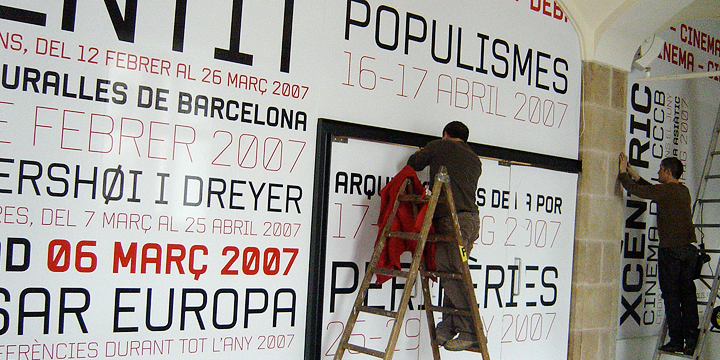
Mecano
Mecano™
by Typerepublic
Mecano Font Family was designed by Andreu Balius and published by Typerepublic. Mecano contains 4 styles and family package options.
About Mecano Font Family
Mecano is a typeface based on geometric structures. Their shapes, wide open and simple, reflects the spirit of mechanical technology. Available on 4 different styles: UltraLight, Light, Regular and Black.
Designers: Andreu Balius
Publisher: Typerepublic
Foundry: Typerepublic